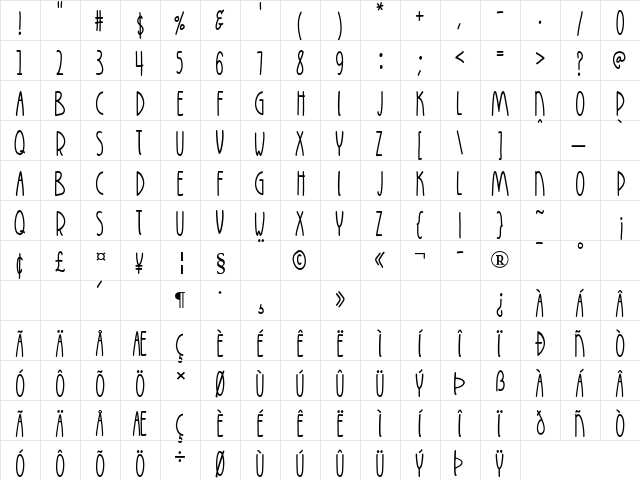
K26Infinitus Regular Free Font
K26Infinitus Regular
Design Context for K26Infinitus
K26Infinitus is a composed and adaptable typeface that performs quietly and consistently across a wide range of design contexts.